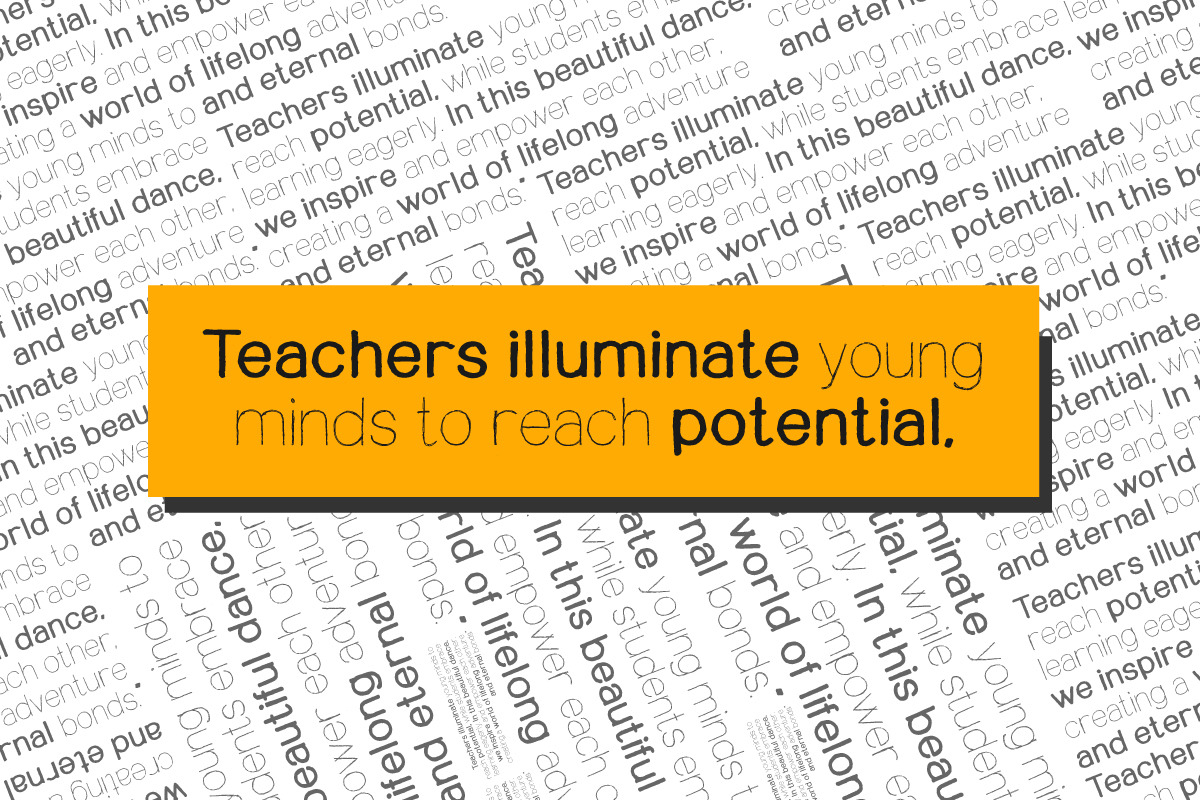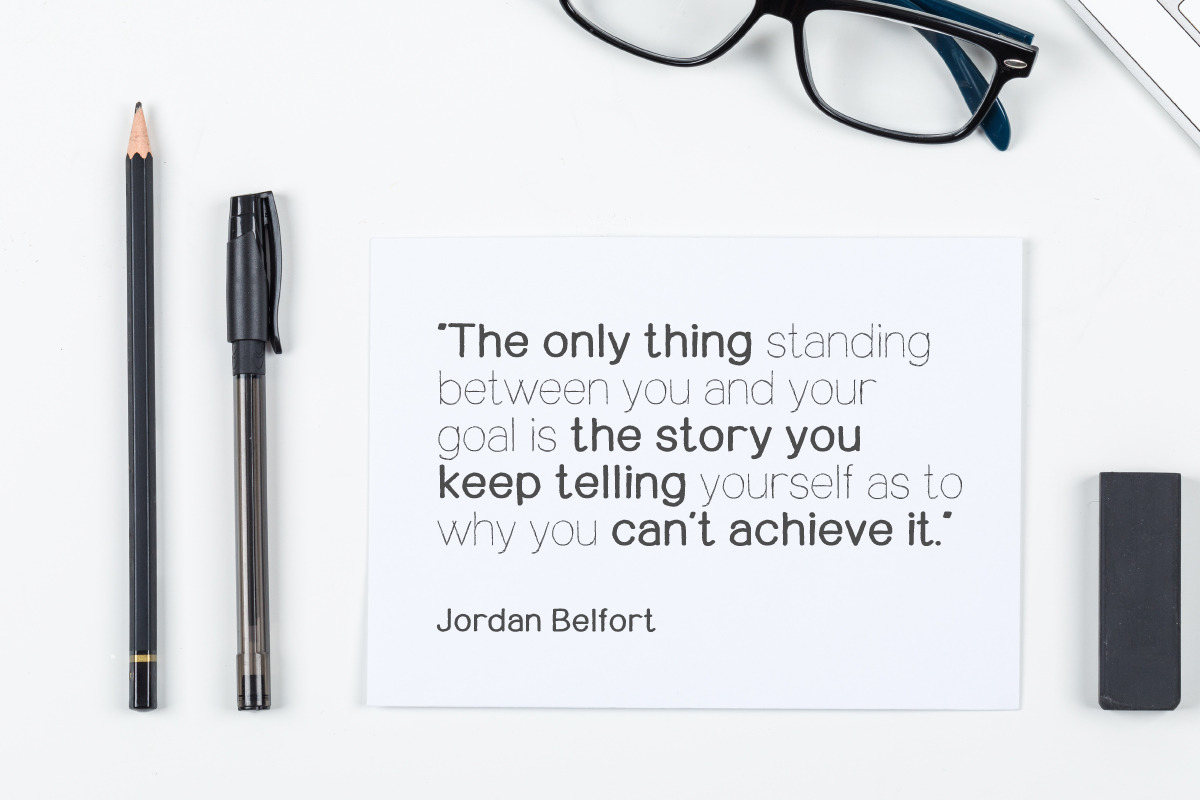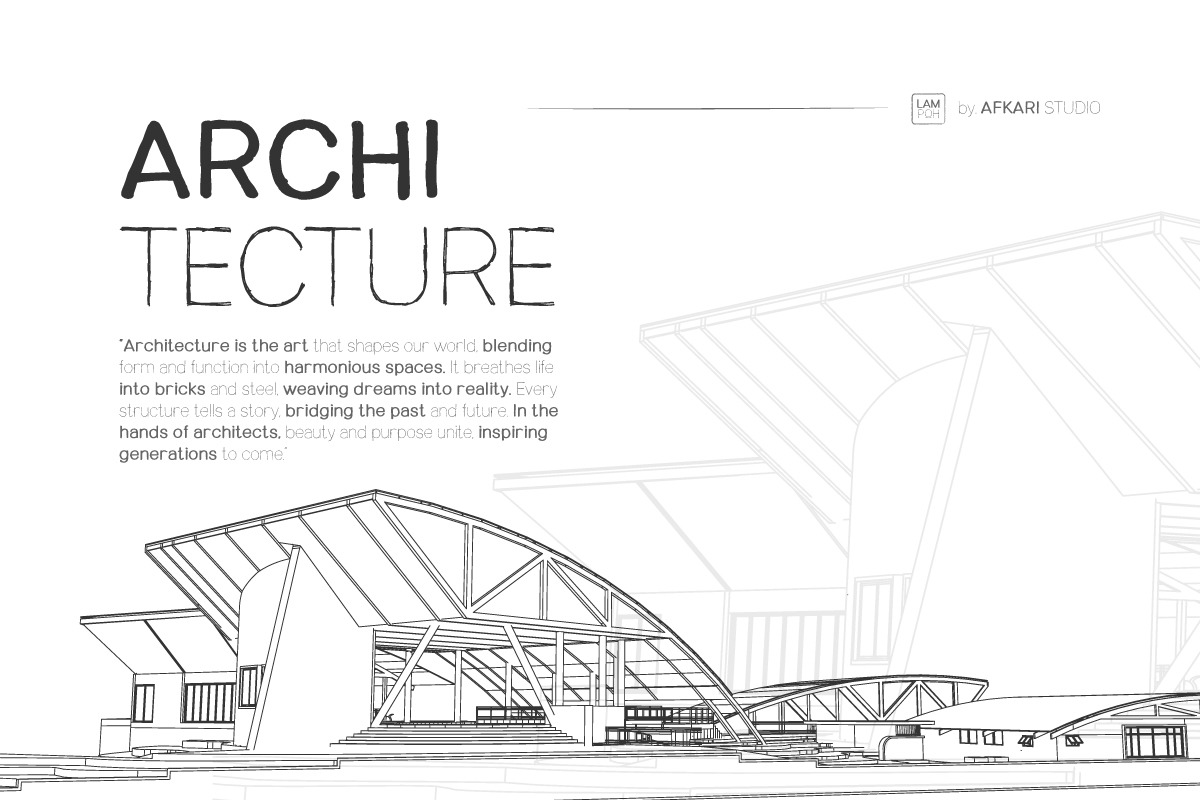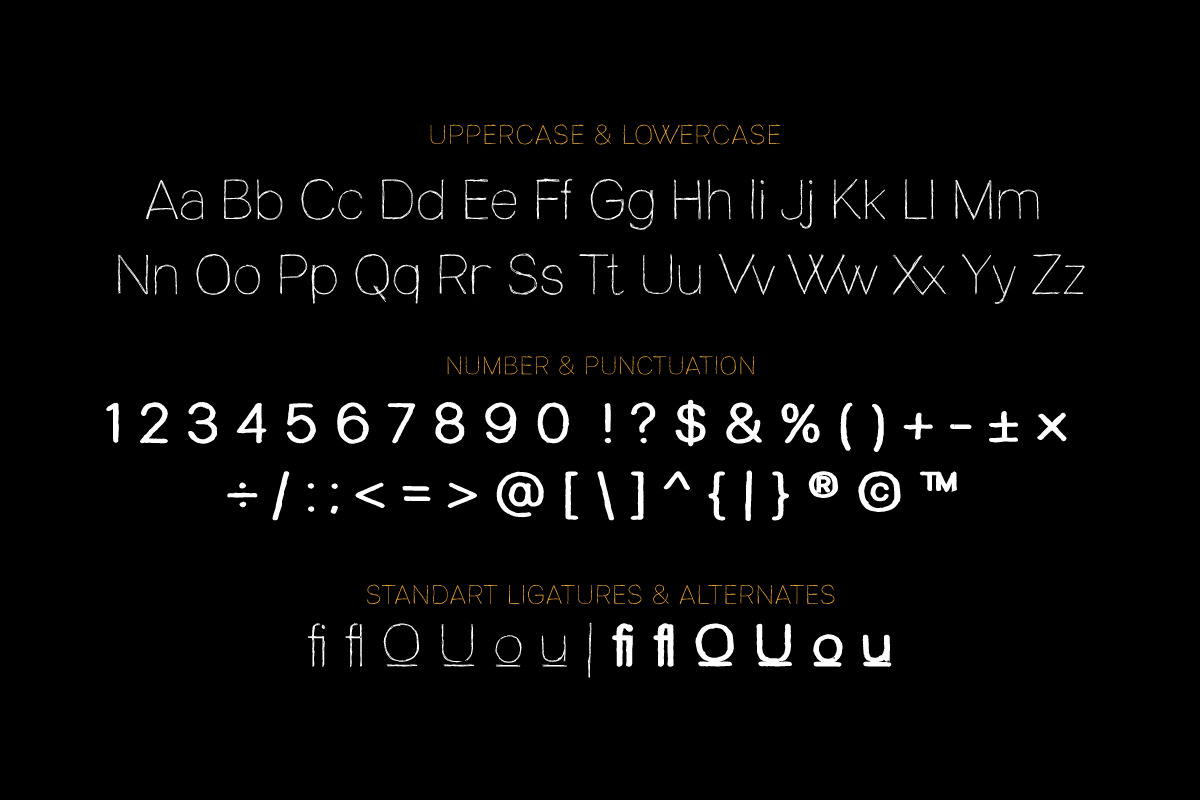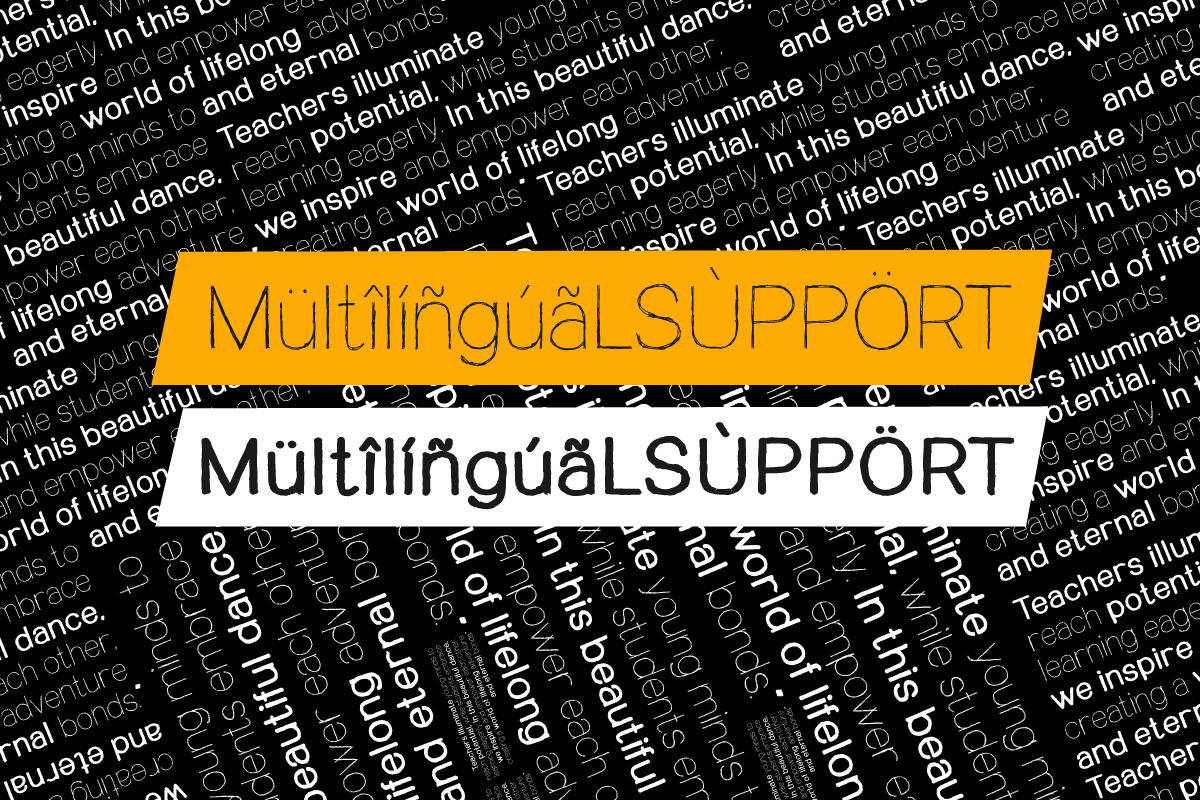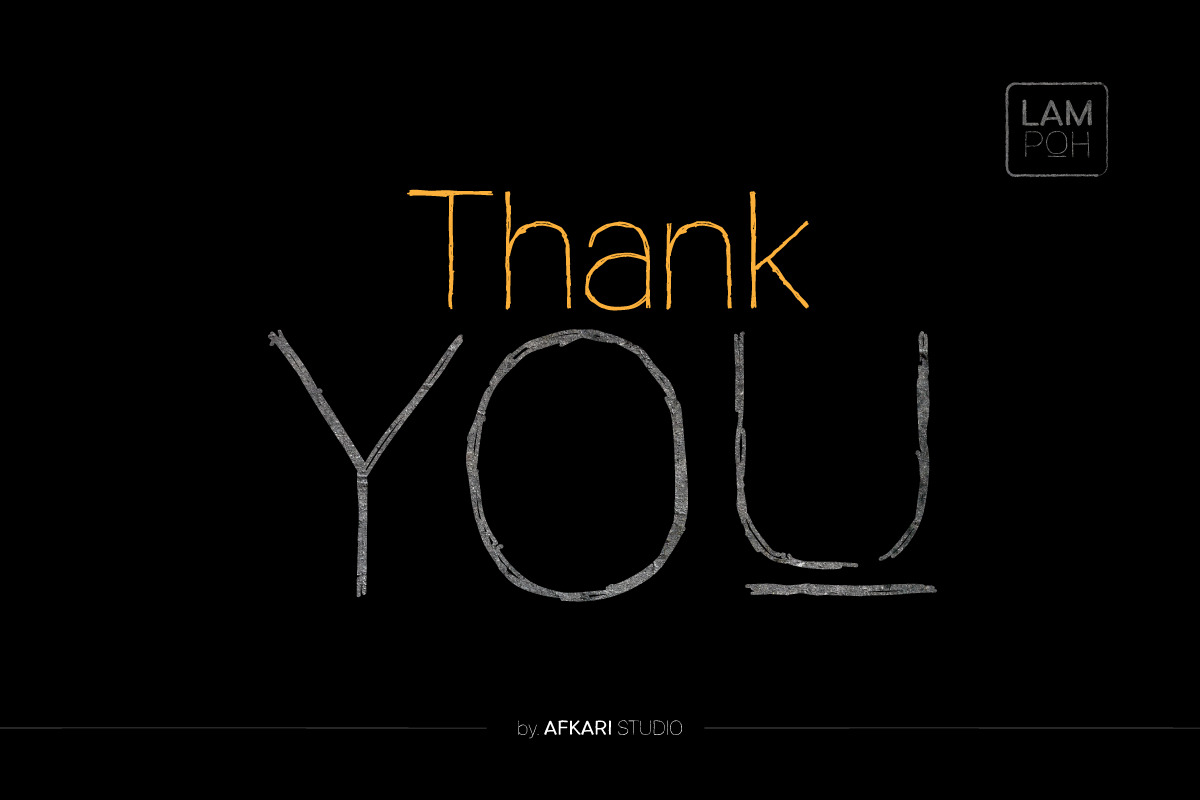
LAMPOH - The Handmade Scratch Display Font
LAMPOH is an artistic and captivating handmade display font, meticulously crafted by a talented type designer to bring uniqueness and authenticity to your creative projects. With its scratch-inspired design, LAMPOH stands out as a one-of-a-kind font that exudes a raw and artisanal charm, making it perfect for various artistic endeavors.
Every character in LAMPOH has been meticulously hand-drawn with love and passion, ensuring that each glyph carries a distinct and organic feel. The imperfections and irregularities of the scratch strokes add an element of human touch, providing a genuine and authentic character to the font.
LAMPOH comes in both regular and bold styles, giving you the flexibility to choose the perfect weight for your design needs. The regular style boasts elegance and subtlety, while the bold style makes a powerful statement, ideal for headlines and emphasis.
LAMPOH's versatile design makes it an ideal choice for a wide range of projects. Whether you're creating eye-catching headlines, attention-grabbing posters, logo designs, merchandise branding, or anything that requires a touch of artistic flair, LAMPOH will effortlessly enhance the visual appeal of your work.
The uppercase characters of LAMPOH are bold and expressive, demanding attention with their captivating presence. On the other hand, the lowercase letters bring a touch of playfulness, offering quirky alternatives to add delightful variations to your text.
LAMPOH comes complete with a set of thoughtfully crafted standard characters and ligatures, allowing you to elevate your designs even further. These unique elements enhance the font's versatility, making it easy to create visually engaging and harmonious compositions.
LAMPOH's high-quality design ensures that it looks equally stunning in both print and digital formats. Whether you're producing posters, brochures, social media graphics, websites, or any other project, this font will consistently deliver outstanding results.
LAMPOH is not just a font; it's a work of art that adds a touch of human craftsmanship to your creative projects. With its handmade scratch-inspired design, versatile usage, and expressive characters, LAMPOH brings a unique and authentic flair to any design. Unlock your creativity and let LAMPOH illuminate your artistic vision with its captivating charm. Choose between regular and bold styles to create striking and memorable designs that leave a lasting impression on your audience.
Features;
- 2 Weights; Regular and Bold
- Uppercase, Lowercase, Number and Punctuation
- Mültîlíñgúãl Sùppört for; ä ö ü Ä Ö Ü ß ¿ ¡